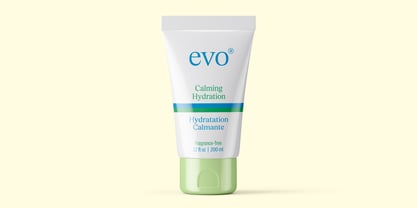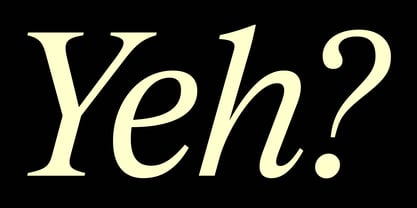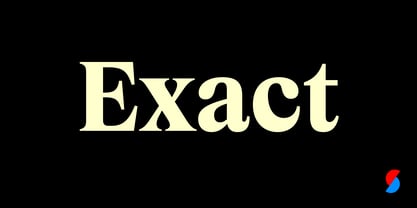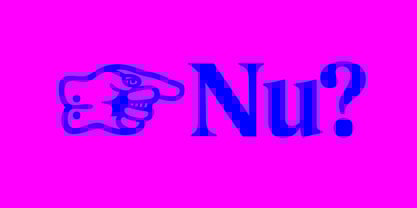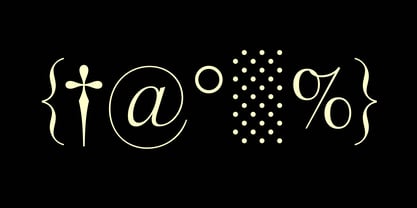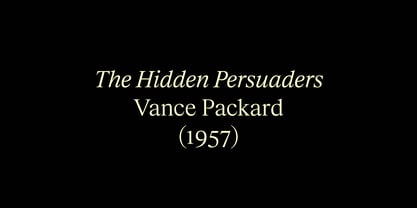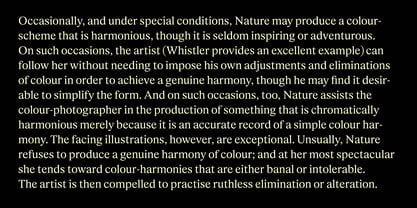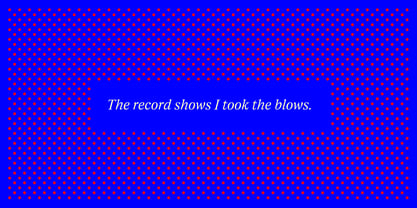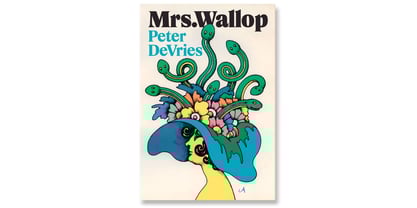
The Exact Font Family was designed by Max Phillips and published by Signal Type Foundry. Exact contains 7 styles and family package options. More about this family
When we were a teenager putting together our first design portfolio, back in the days of rubber cement and X-Acto knives, we were obsessed with Times New Roman. We knew it was prissy and joyless, but we didn’t mind. We were prissy and joyless ourselves. We loved its air of strict, unbending neutrality, and we bought sheet upon Letraset sheet of it and used it for everything we could. But as we grew older and learned a bit about letters, we realised that it actually wasn’t very well made. This is not surprising, since TNR was art directed by Stanley Morison, a man who never pretended he could draw, and drawn by nobody in particular. An advertising lettering artist named Victor Lardent did the initial concept art. This was then turned over to the 1930s hive mind—the Monotype Drawing Office—and expanded into a range of weights and widths with no one, apparently, talking to anyone else throughout the process. TNR did its job as a modern newspaper type brilliantly without ever actually being any good. It subsequently became numbingly ubiquitous because it was less trouble to use than not, and at last was shunned by right-thinking designers everywhere. But in recent years typographers have come to find something heroic about TNR’s reticence, its dowdy elegance, its calm, inflexible unwillingness to please, and reconsiderations of TNR have become a genre unto themselves, and why shouldn’t Signal have a go? So we’ve redrawn it from scratch as a natively digital typeface for what we still like to think of as the 21st century, with unlumpy curves and some vague notion of organic unity and an italic that isn’t quite so Microsoft Executives Dancing. When we drew the bold weights, we found a bit of 70s funk creeping in, a bit of ITC Grouch, and we left it there. The X-Light came out a little bit Olive Oyl, and we left that in there too. In honor of the old days of kerning with an X-Acto knife, we’ve named our new face Exact.
Exact